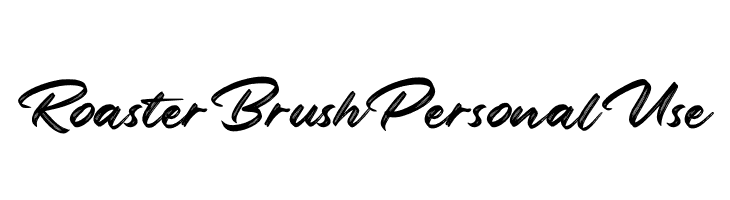
A bold, brush-textured font with an artistic, hand-painted style.
A bold, expressive brush-style font with a hand-painted appearance.
A dynamic brush script font with fluid, expressive strokes.
A bold, expressive brush script font with dynamic and flowing strokes.
A lively, expressive brush script with a hand-drawn aesthetic.
A lively brush script font with expressive, fluid strokes.
A bold, brush-style font with dynamic, handwritten characteristics.
A bold, expressive brush-style font with dynamic, hand-painted strokes.
A bold, brush-style font with dynamic, hand-drawn characteristics.
A bold, expressive brush-style font with dynamic strokes and a hand-painted look.